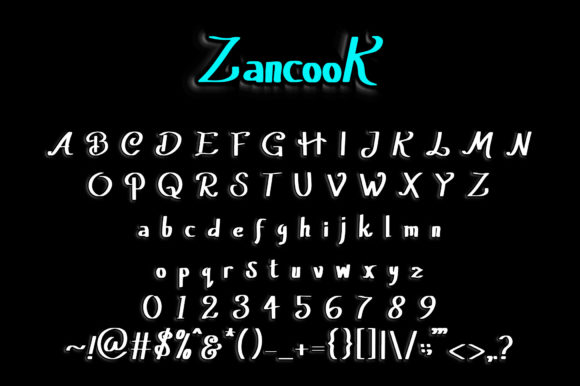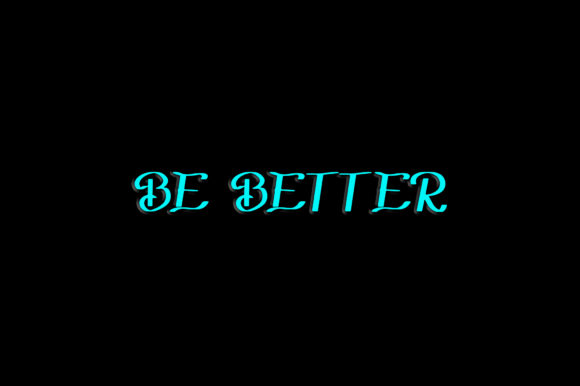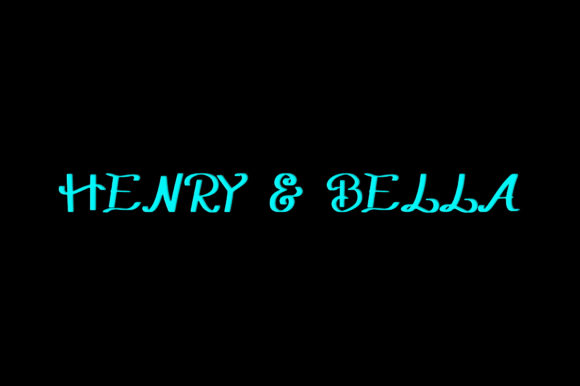
About Zancook Font
Zancook is a cool, friendly, and informal handwritten font, that can be used for all chalkboard quotes or teaching material! Its authentic look will add a personal and realistic feel to your designs.